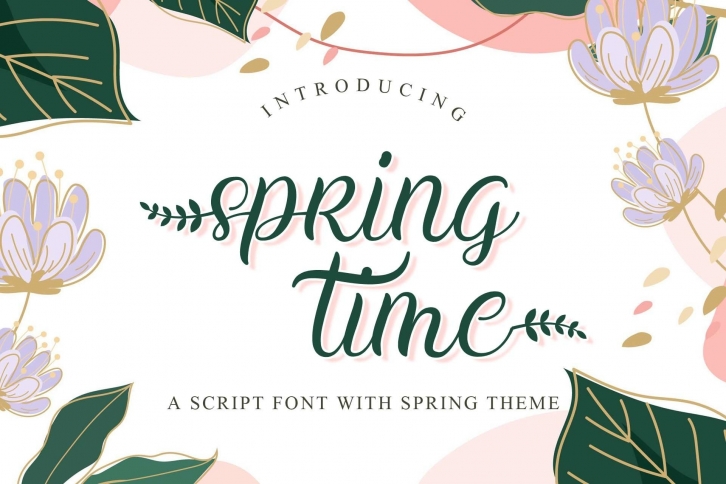
Spring Time is a trendy and unique font with an authentic style. It was designed by Mas Fik and it's a great choice for creative people who need such a font. It was released on March 8, 2021 and the file size is 15.22 MB. Spring Time will add an organic vibe to any design idea!